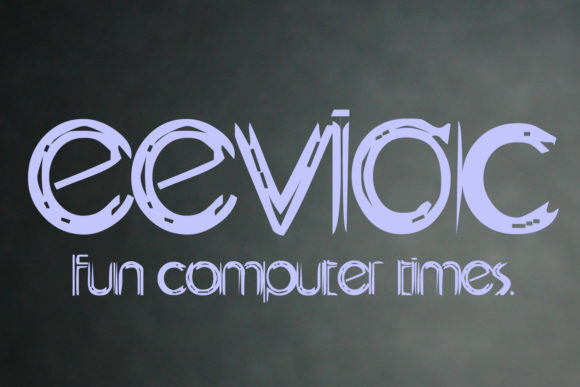
Adorn your digital designs with a splash of technological zest using Eeviac Font, a captivating display font that fuses the allure of distressed textures with the sleekness of modern aesthetics. Unleash your creativity and let your designs take center stage with this versatile font, meticulously crafted to provide an extraordinary visual impact.
Immerse yourself in a world of boundless possibilities, where Eeviac's striking characters dance across your screen, leaving a trail of undeniable impact. Its unique combination of sharp edges and distressed accents lends an air of intrigue to your projects, making them stand out from the mundane.
Picture your digital comic book creations adorned with Eeviac's bold and dynamic strokes. The font's distinctive style will breathe life into your characters, enhancing their personalities and adding depth to their interactions. Its sharp edges convey a sense of tension and drama, while the distressed textures evoke a nostalgic charm that captivates readers.
Eeviac's versatility extends beyond digital comics. Its adaptability shines in a myriad of design projects, from t-shirt printing and logos to creative products that demand attention. Whether you seek to evoke a sense of edginess or playfully blend the old with the new, Eeviac delivers an unforgettable experience that resonates with your audience.
Don't settle for ordinary fonts. Embrace Eeviac and embark on a creative journey where your designs transcend boundaries. Its effortless cool and urban flair will inject your projects with a dose of undeniable charisma, ensuring they leave a lasting impression on all who encounter them.